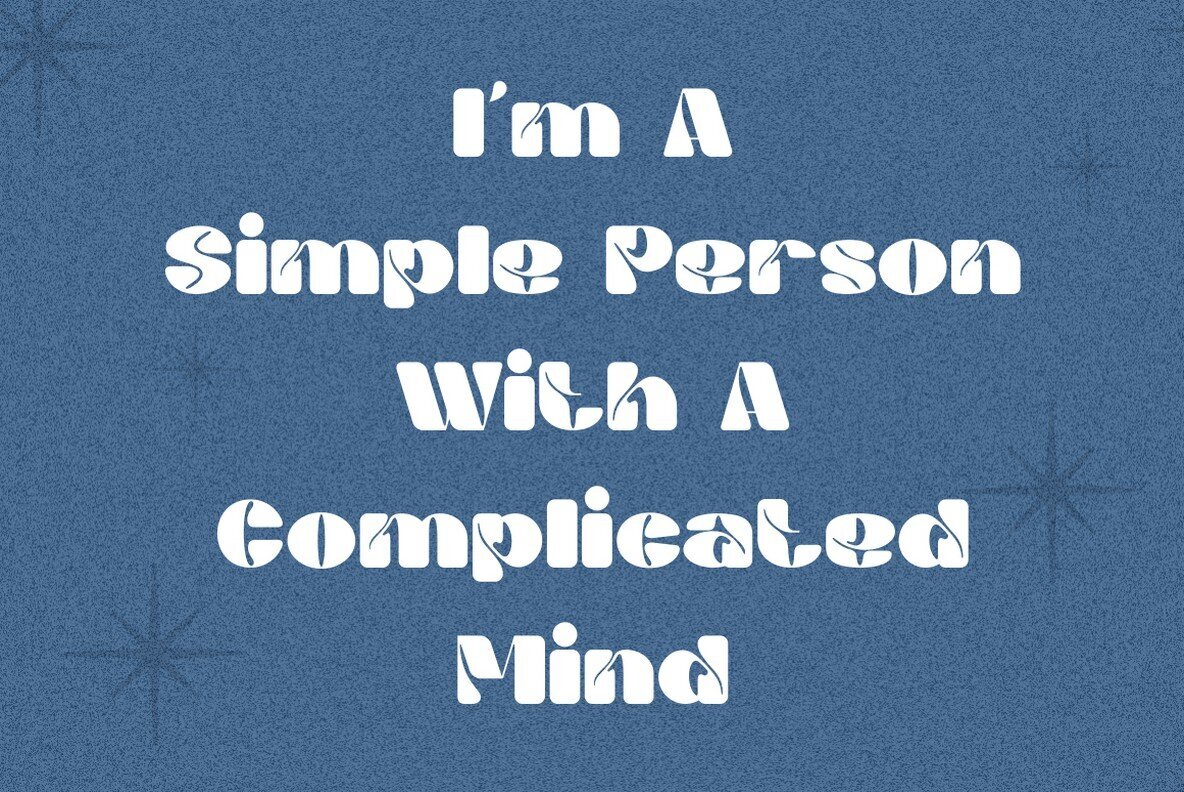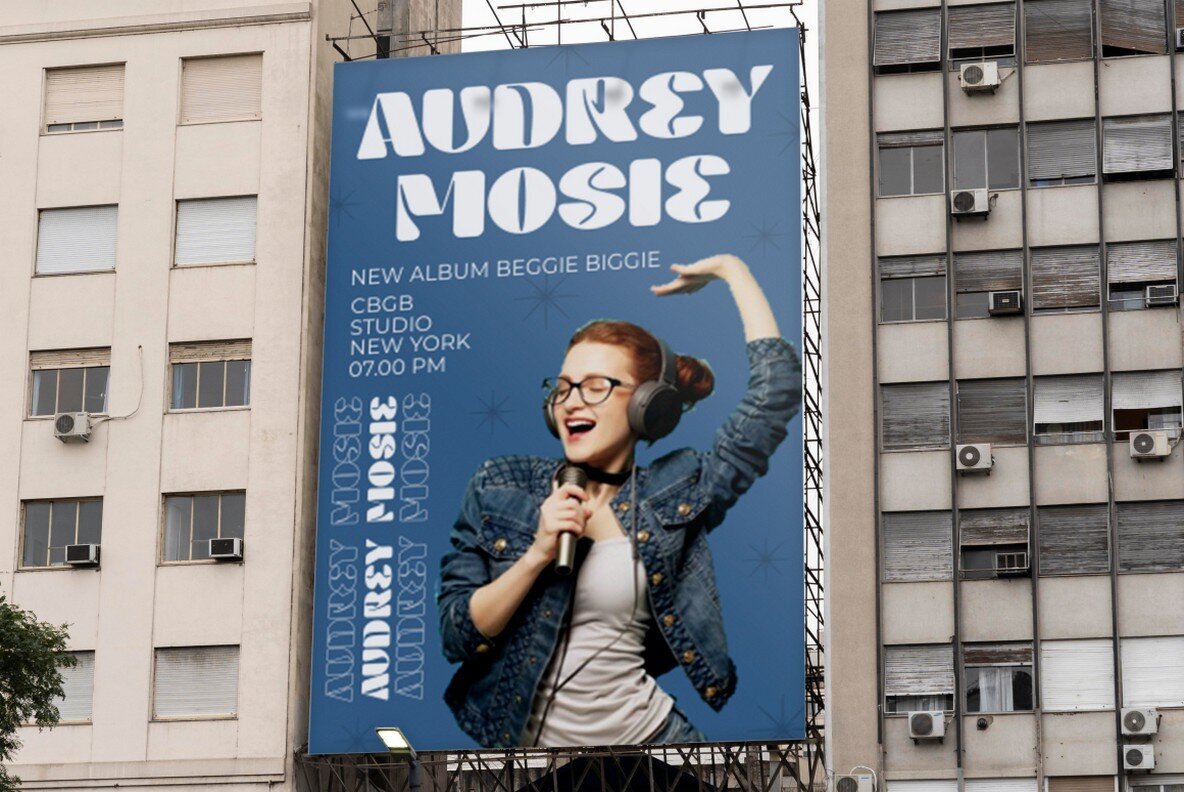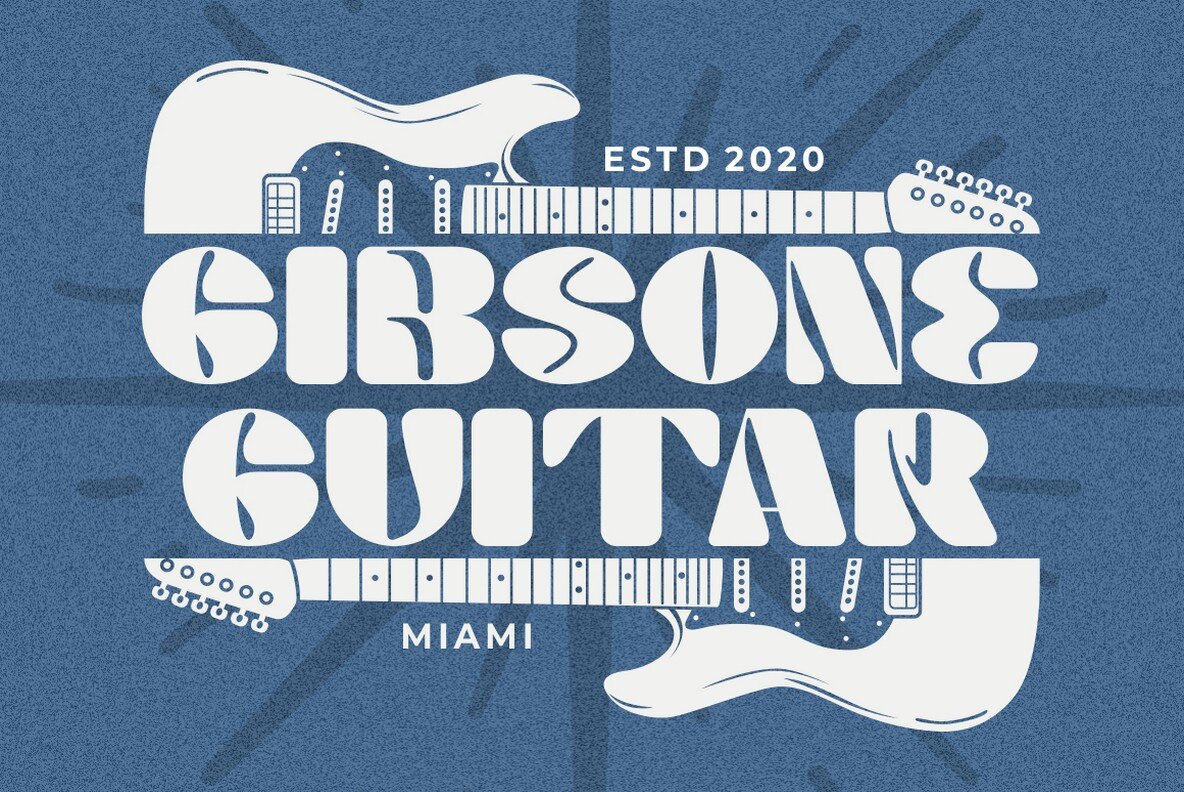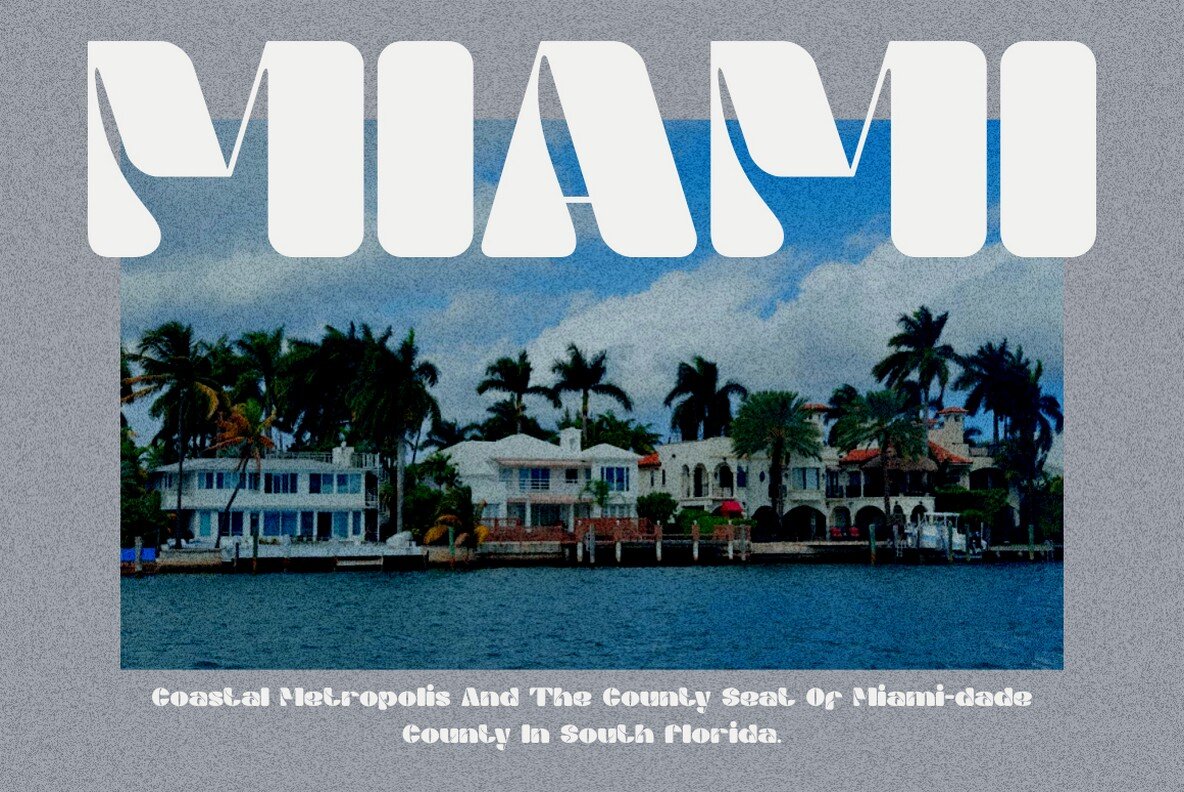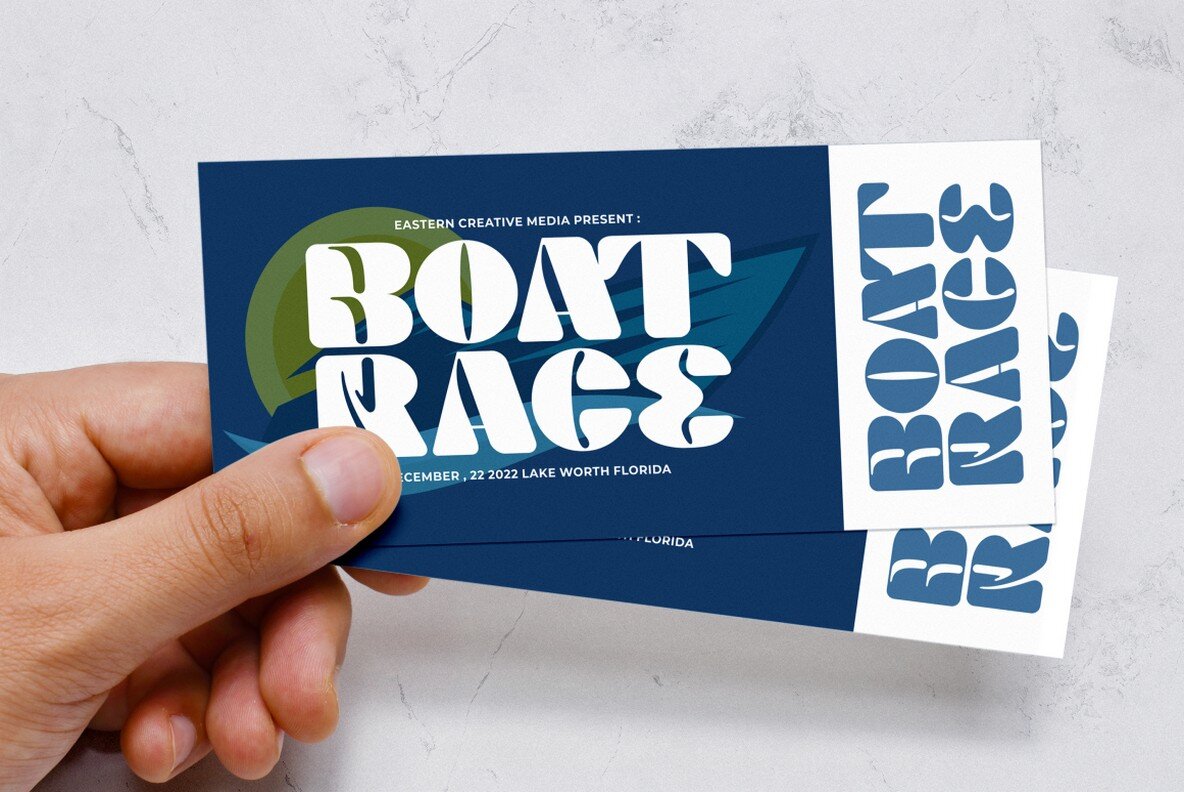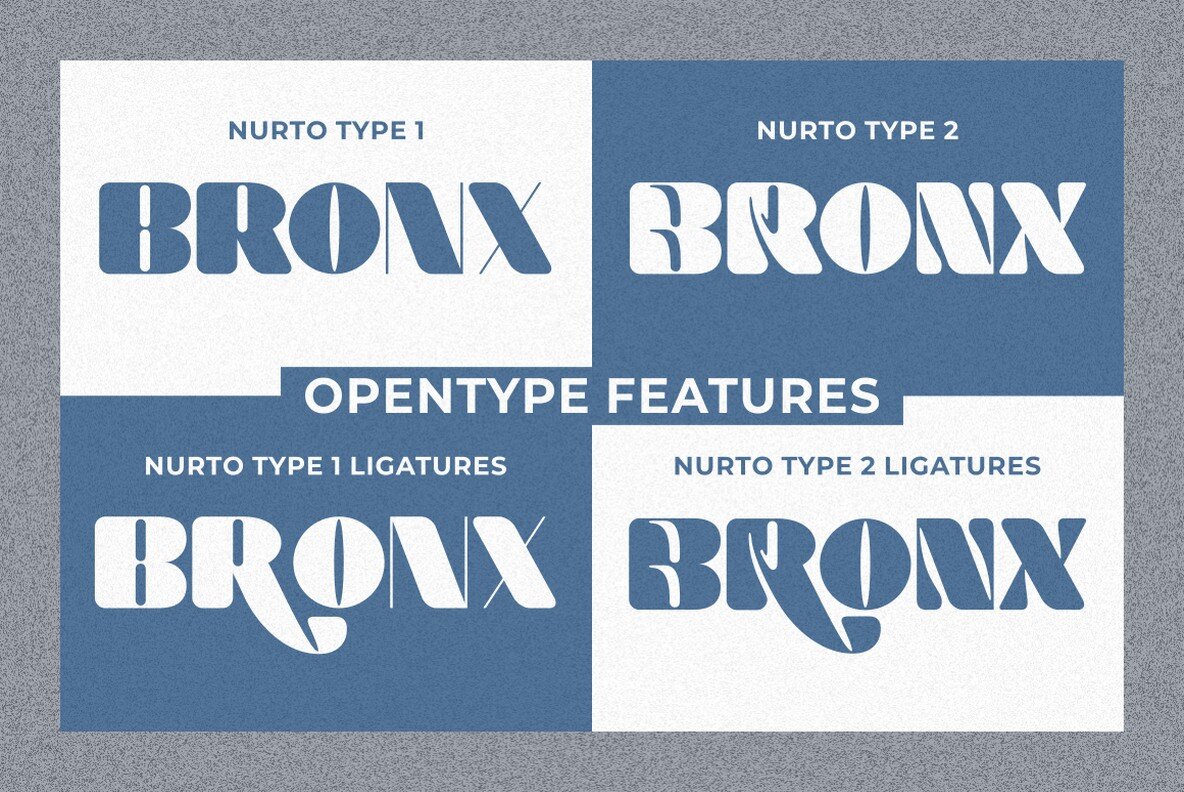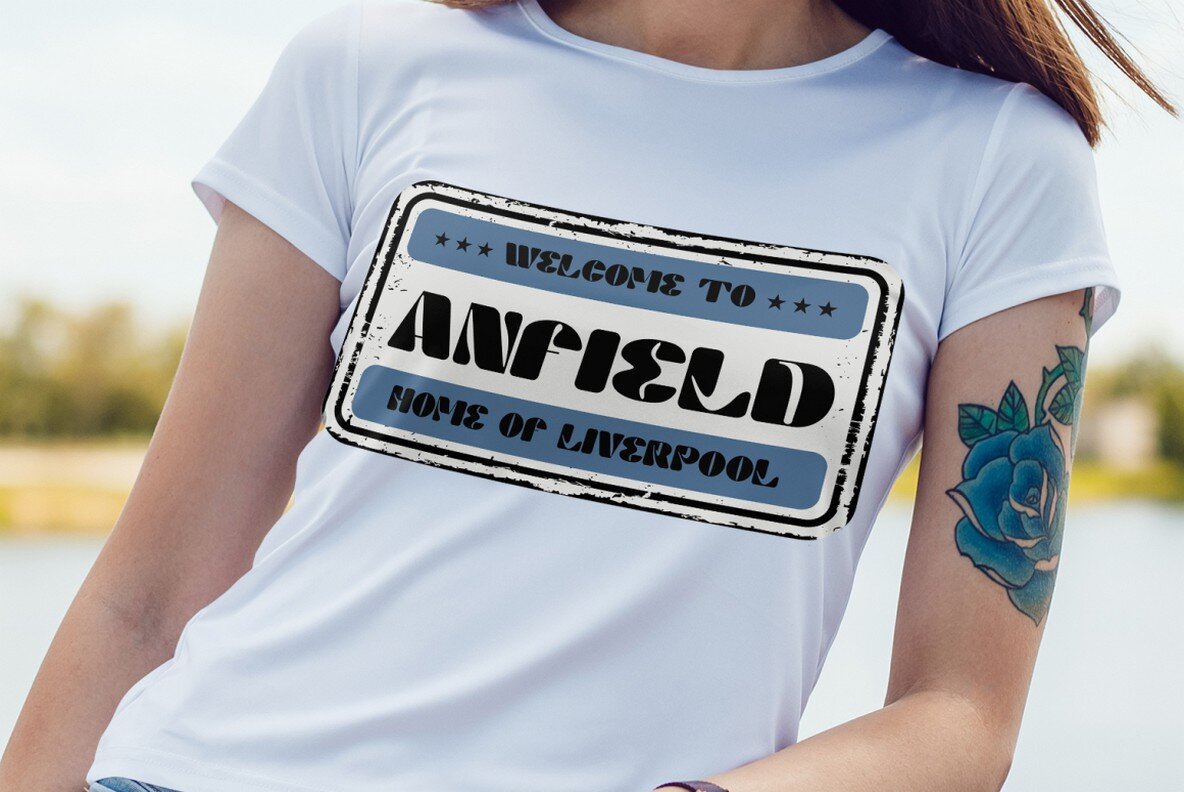
Malow Font
Malow is a stunning display font that exudes elegance and sophistication. Designed with a contemporary style while maintaining classic appeal, Malow is perfect for a diverse range of applications. Malow was crafted to blend a modern aesthetic with timeless elegance. This typeface is ideal for branding projects, logos, packaging designs, posters, and more, offering a remarkable visual impact. This versatile font excels in various design contexts, whether for print or digital mediums. Its clean lines and bold appearance suit headlines and titles, while maintaining legibility for body text. Malow is available in multiple formats that ensure compatibility with various design software, enhancing ease of use. Malow is an elegant display font that bridges modern and timeless styles, making it a fine choice for diverse design endeavors. Its inclusion of multilingual support and opentype features makes it a sophisticated addition to any project.Malow: Elegant Display Font for Modern and Classic Designs